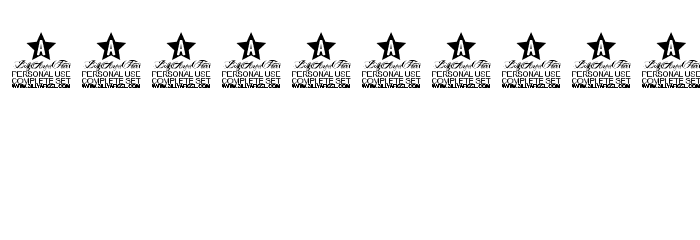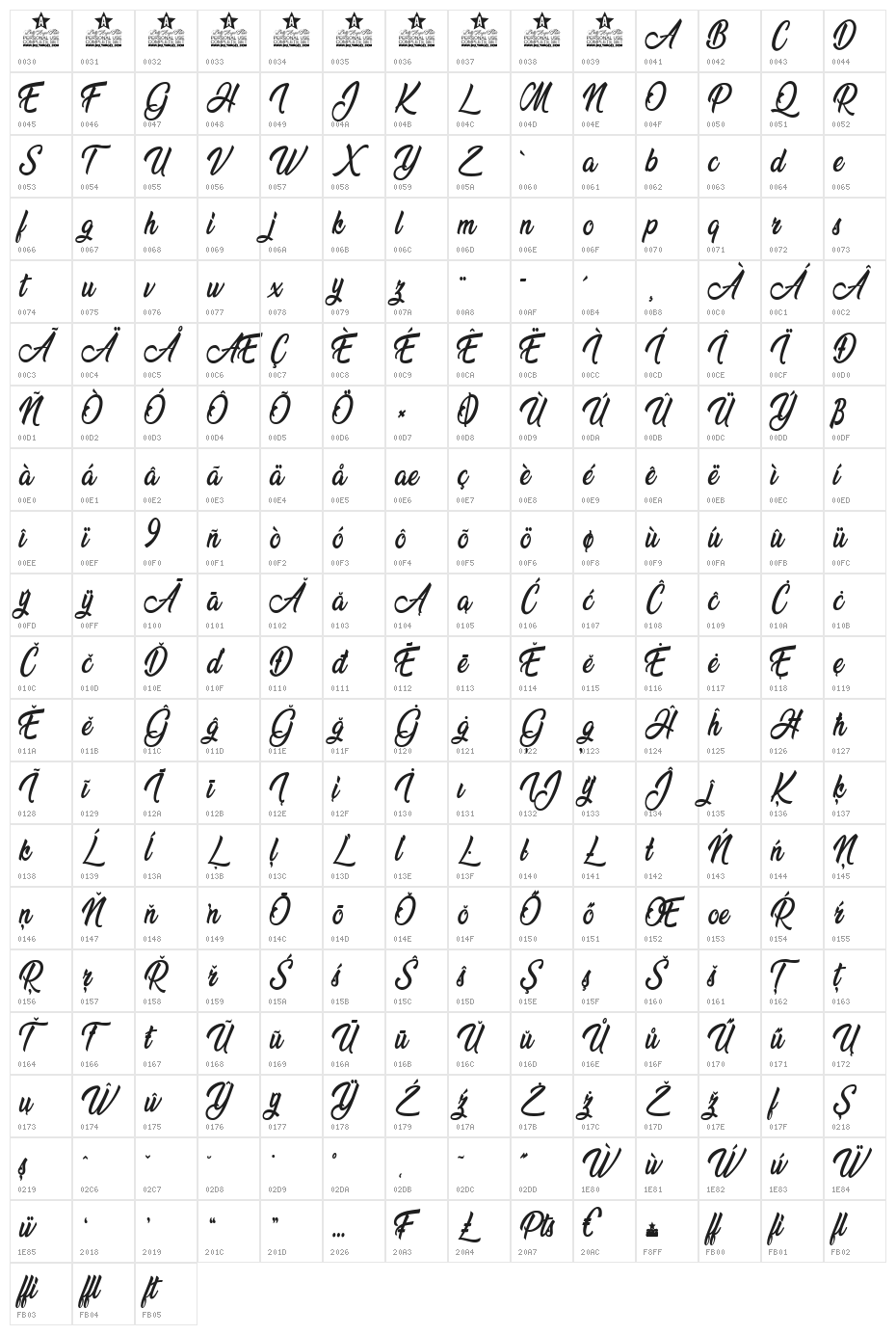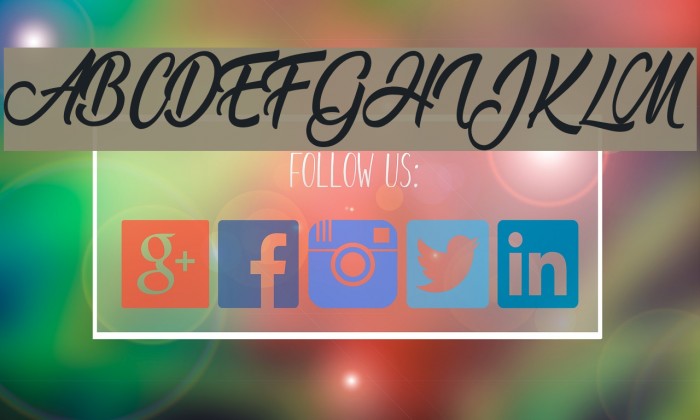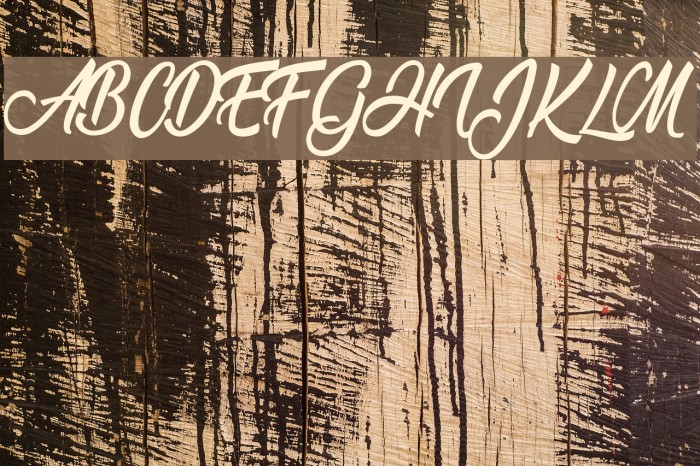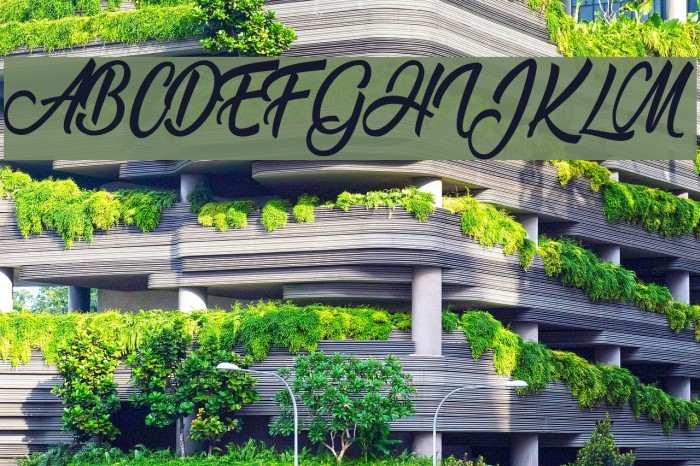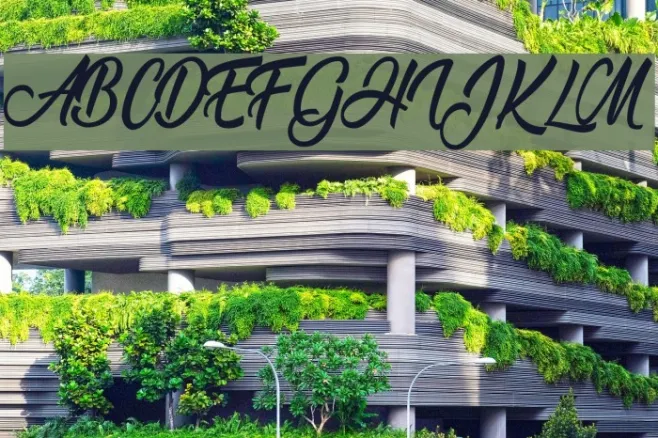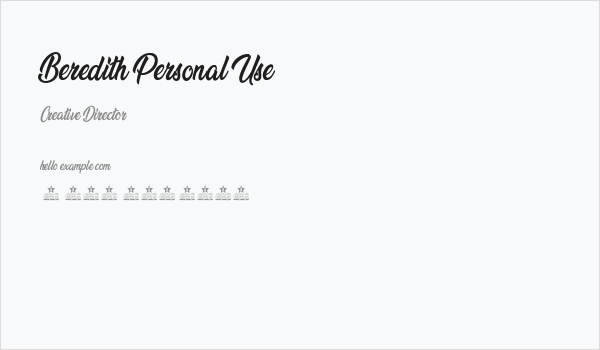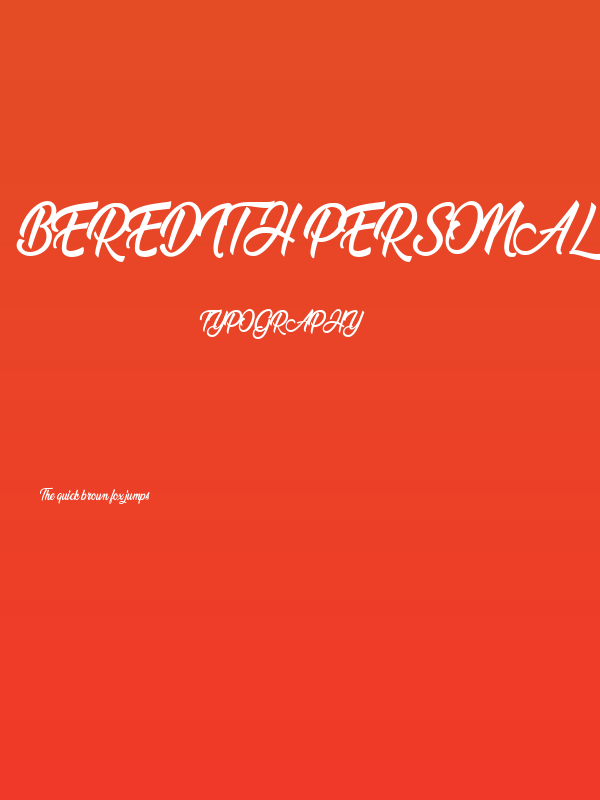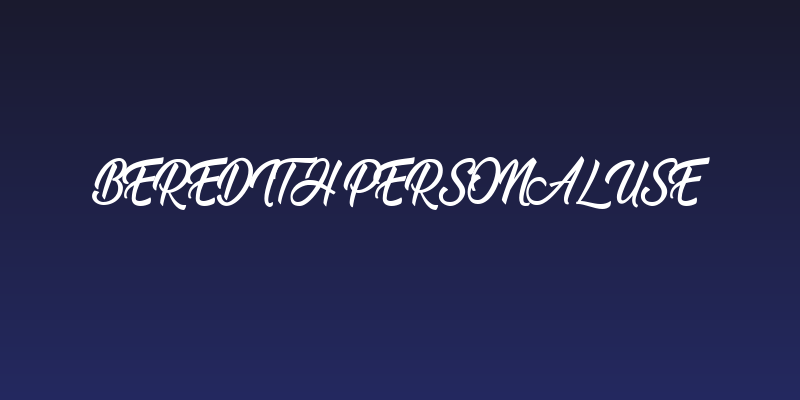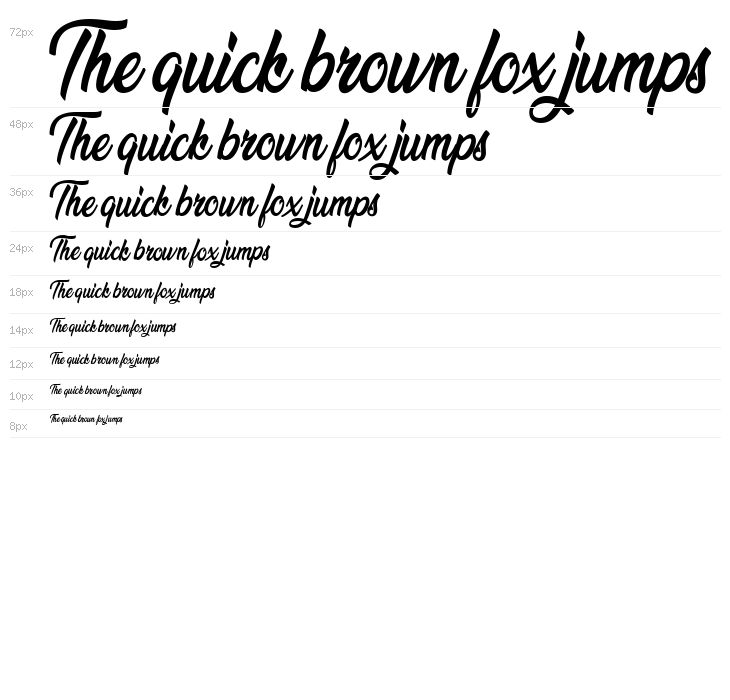
Beredith Personal Use Font
Beredith Personal Use Description
This font features a flowing, cursive style with elegant, sweeping strokes that give it a sophisticated and artistic appearance. The uppercase letters are bold and prominent, while the lowercase letters maintain a consistent flow, enhancing readability. The script is characterized by its smooth curves and fluid connections between characters, creating a harmonious and cohesive look. The numbers and special characters are designed to match the overall aesthetic, ensuring a uniform appearance across all text. This font is ideal for projects that require a touch of elegance and creativity.
| Overall Style | Elegant, Artistic |